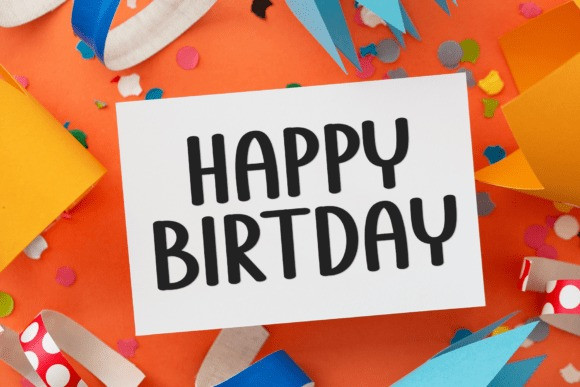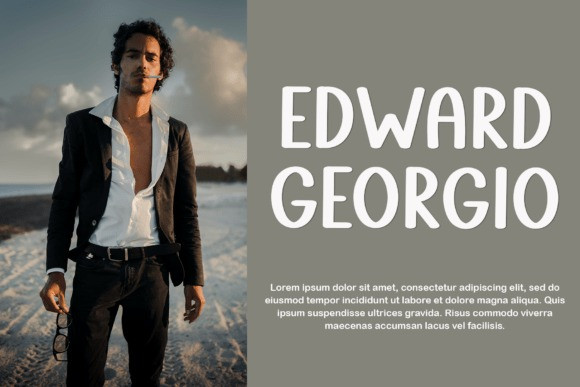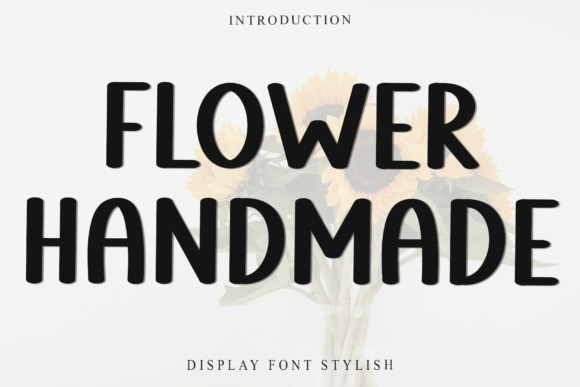
Flower Handmade Font
Flower Handmade Font – Bursting with personality, this playful handwritten display font brings a fun and whimsical vibe to your designs. With its bouncy letterforms and casual strokes, it adds a hand-crafted charm that’s perfect for children’s projects, greeting cards, logos, posters, and creative branding. Whether you’re designing something lighthearted or just want to add a touch of joy, this font delivers with style and flair.